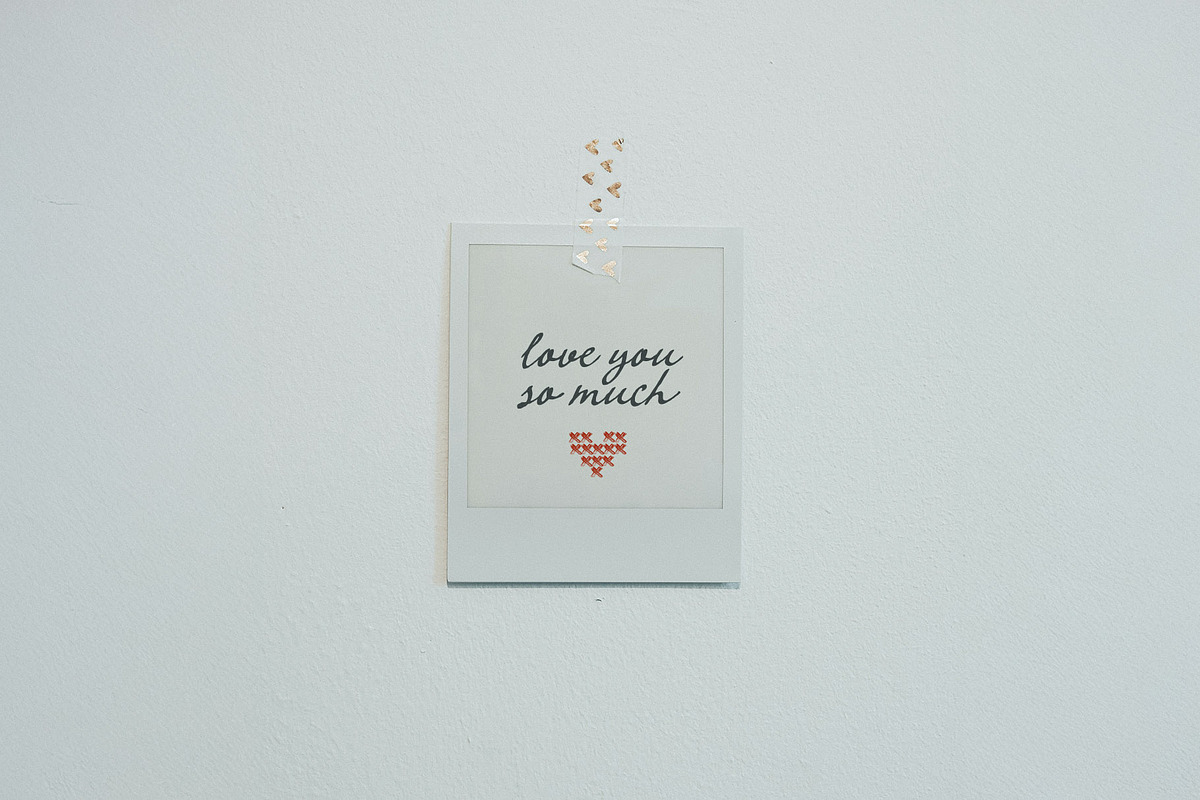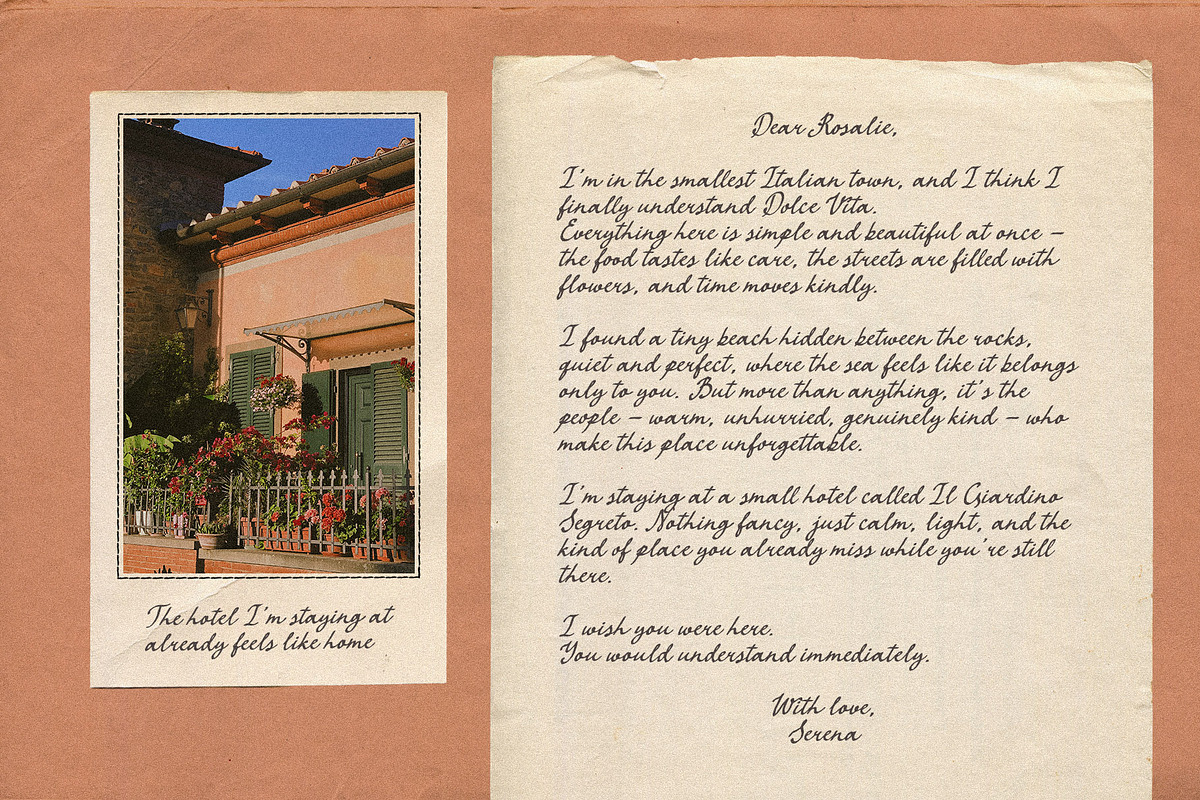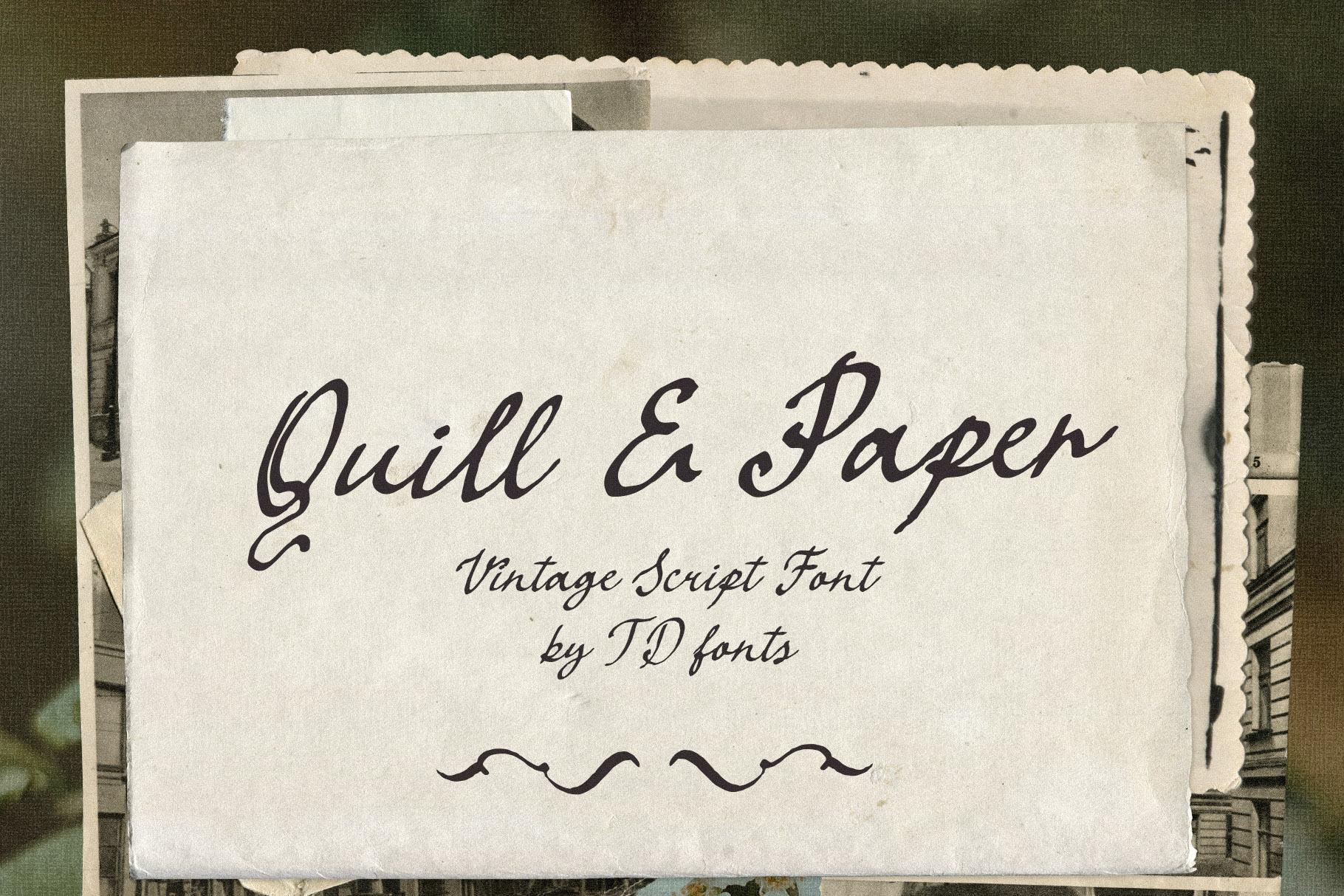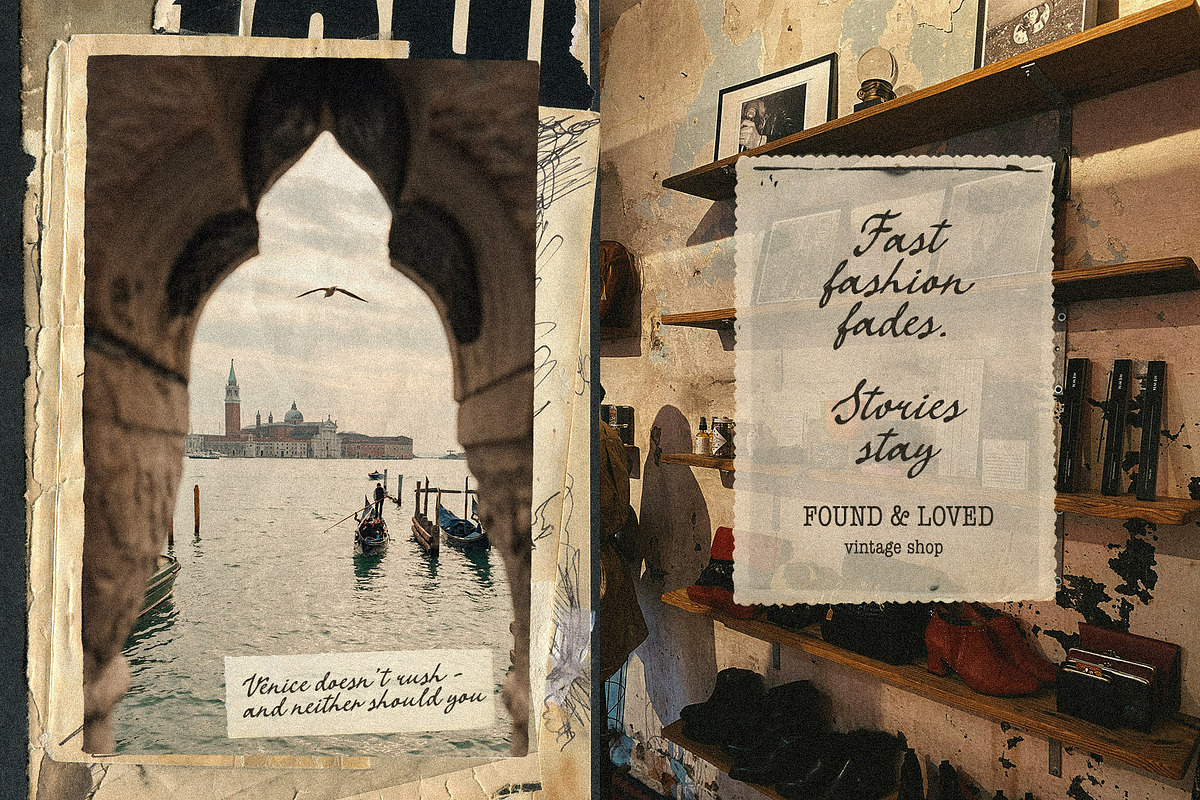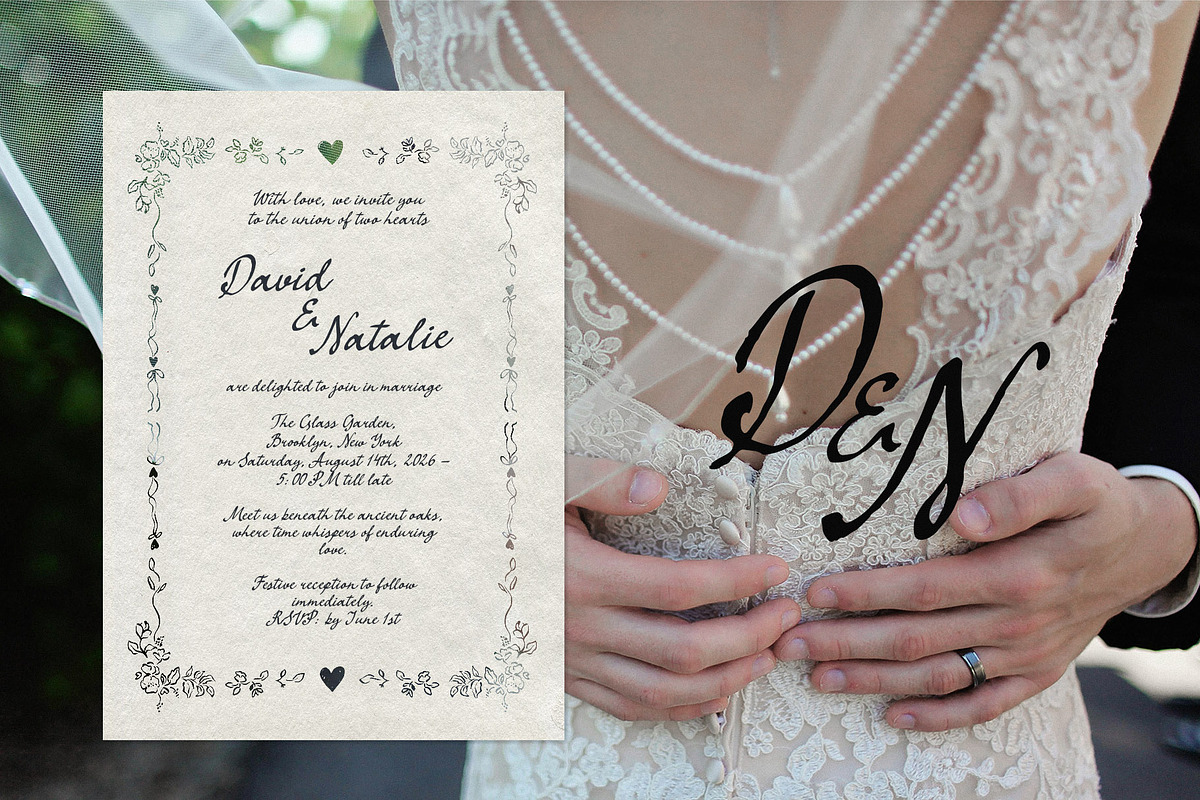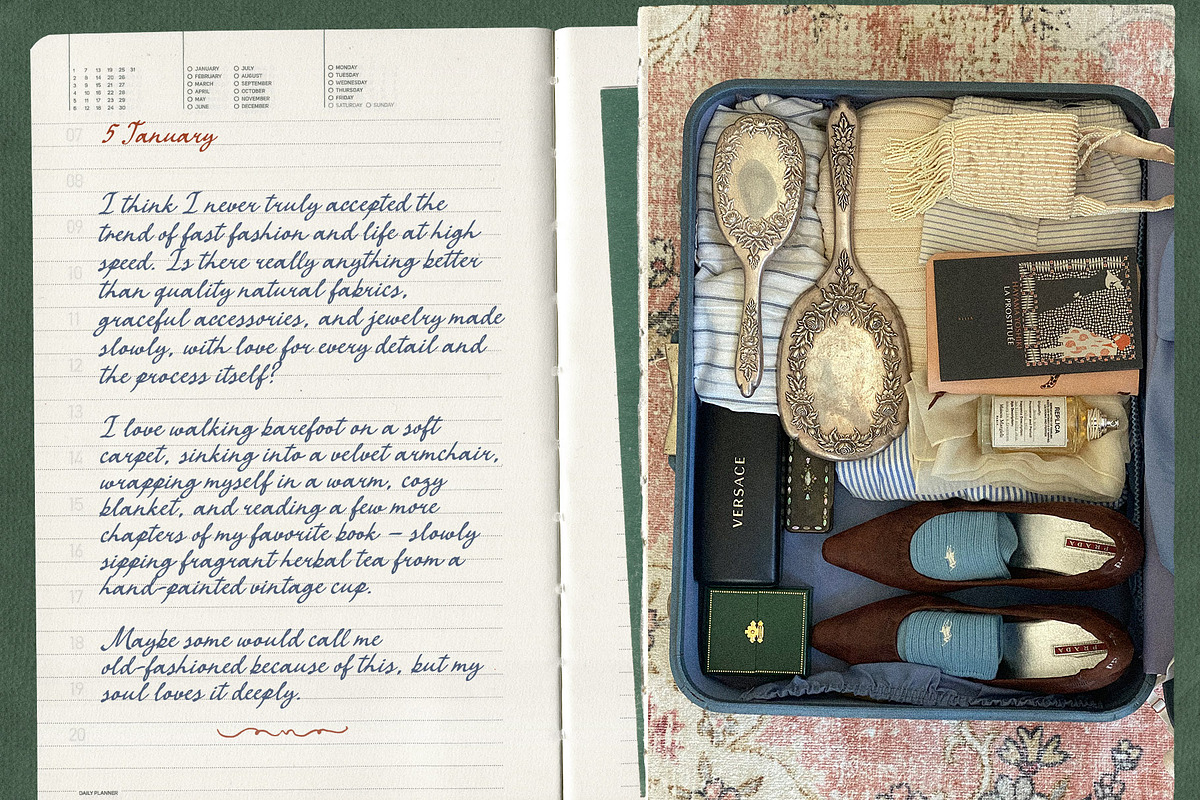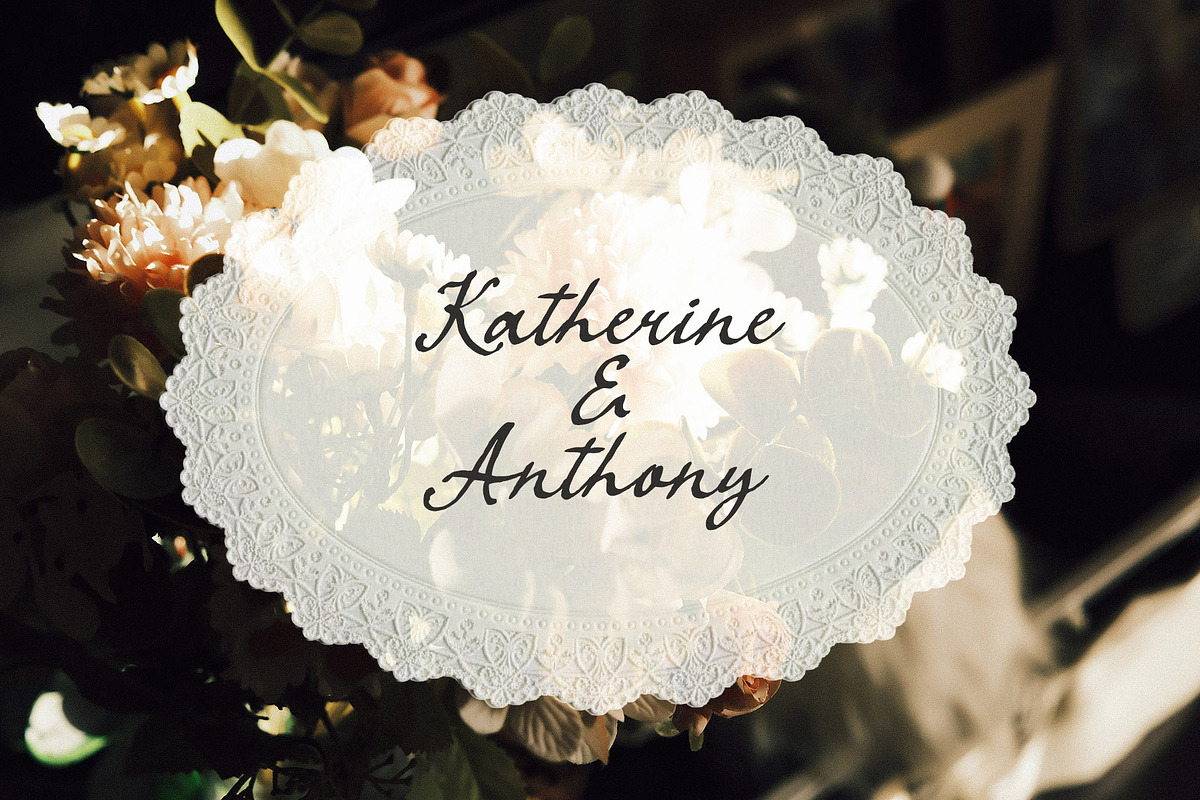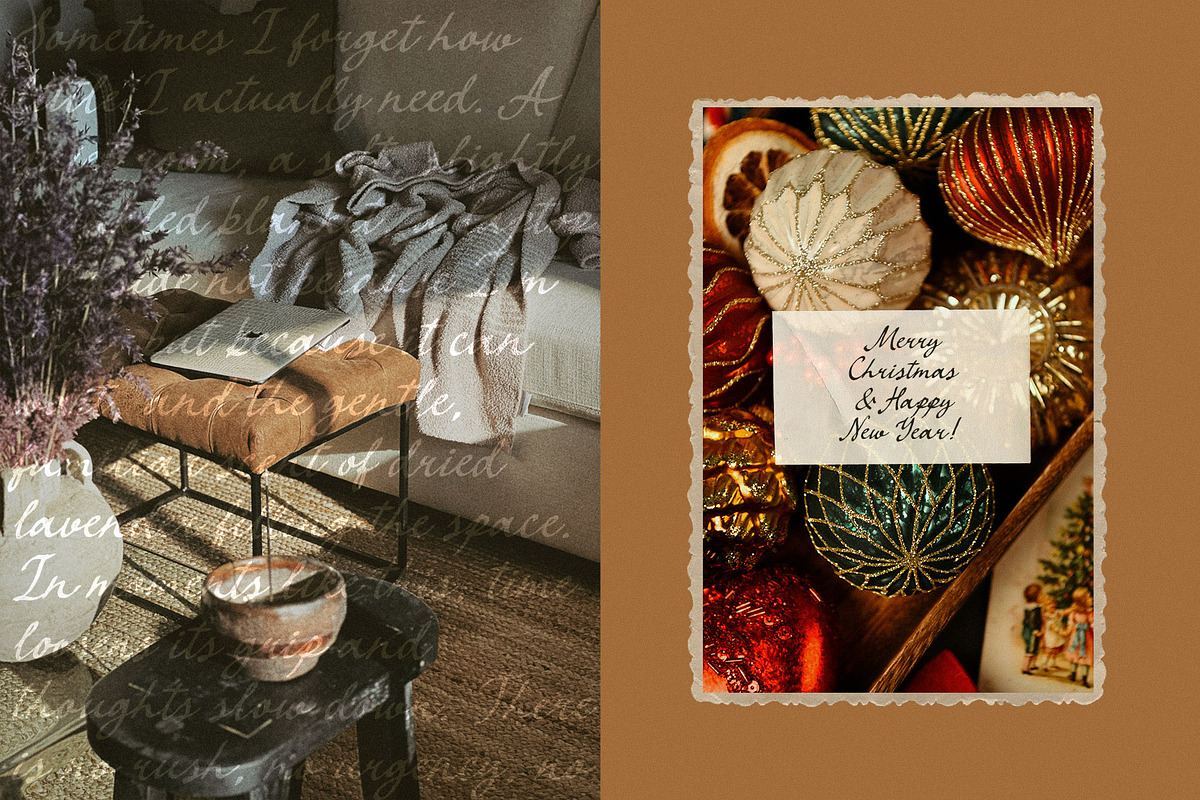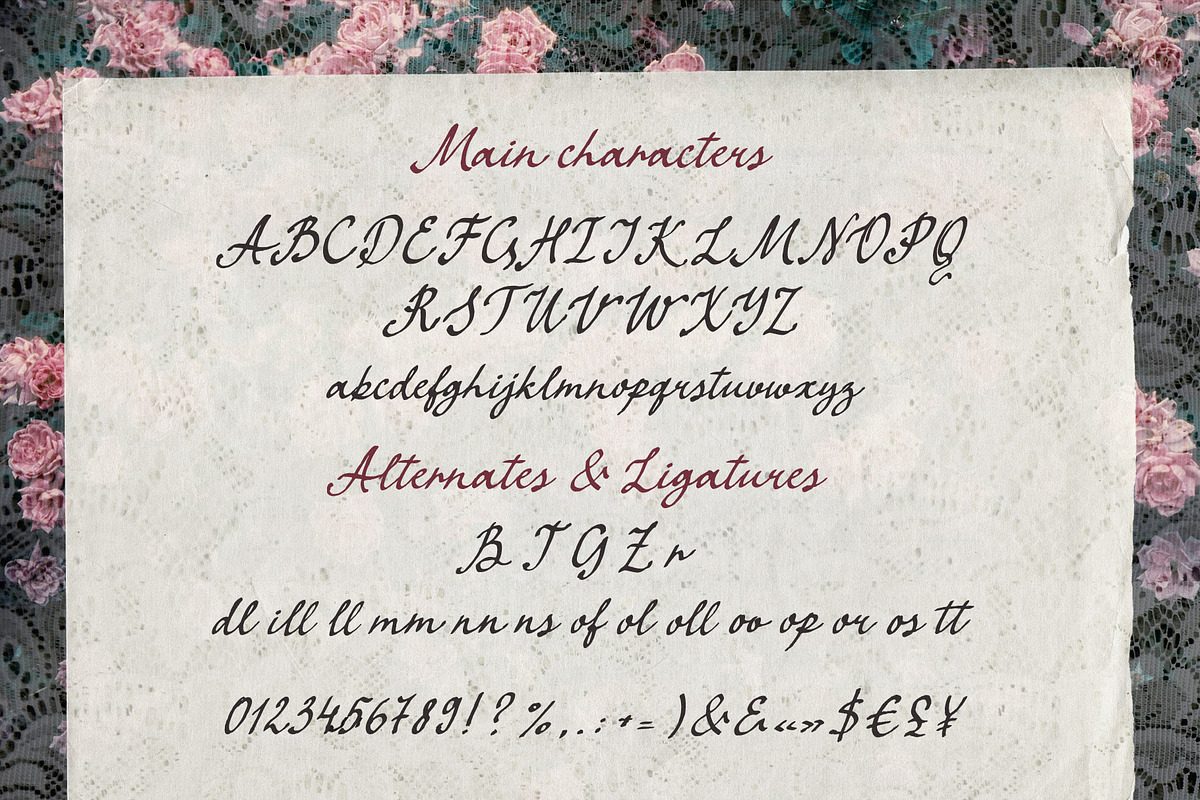
Vintage Retro script font Quill Pape
Quill & Paper - Vintage Handwritten Retro Script Font, Elegant Handwriting Flat Nib Pen cursive font for Wedding Calligraphy
Quill & Paper is an elegant vintage‑inspired script font written with a flat nib pen on real paper for everyone who loves traditional calligraphy tools and timeless letterforms. The flat nib structure gives the font its defining character: wide angular downstrokes and sharp hairline verticals, the unmistakable mark of a dip pen held at a consistent angle. The ink strokes were carefully vectorized, preserving visible texture, gentle imperfections, and the quiet warmth of something genuinely made by hand. The result is a fully connected cursive script with a moderate rightward slant, graceful rounded letterforms, and tall fluid ascenders that give every word an unhurried, considered rhythm.
The uppercase letters carry subtle whimsical swashes — expressive without being overwhelming, decorative without sacrificing elegance. The lowercase is clean, readable, and beautifully proportioned, making Quill & Paper as practical as it is beautiful. This is a font that works equally well as a large-format display headline and as a block of flowing handwritten text.
Quill & Paper gently echoes old love letters and handwritten correspondence, giving your designs a personal, nostalgic touch. It brings the beauty of traditional calligraphy into modern design without losing the refinement of the original tool.
Wedding invitations, Save the Date cards & wedding stationery
Romantic greeting cards, love letters & journals
Logos, monograms & branding suites
Romantic quotes, postcards & nostalgic projects
Retro-themed design, packaging & product labels
Graphic design, website headers & editorial layouts
Font features:
Flat nib calligraphy structure — wide angular downstrokes and sharp hairline verticals
High-contrast strokes with angle-based ink contrast, not pressure-based
Fully connected cursive script with a moderate rightward slant (\~10–15°)
Tall, fluid ascenders and graceful rounded letterforms for an unhurried rhythm
Decorative swash capitals — expressive, whimsical, and elegant
Visible ink texture and charming imperfections preserved from the original pen-on-paper source
Versatile at any size — works as a display headline and as flowing body text
The aesthetic: Quill & Paper feels like a letter written slowly, with care. If you are designing a wedding suite, a romantic brand identity, nostalgic packaging, or any project where typography needs to carry warmth, elegance, and the quiet beauty of traditional calligraphy — this font was made for that moment. It is not modern-minimal. It is not clean or geometric. It is refined, personal, and rooted in the pleasure of writing by hand.